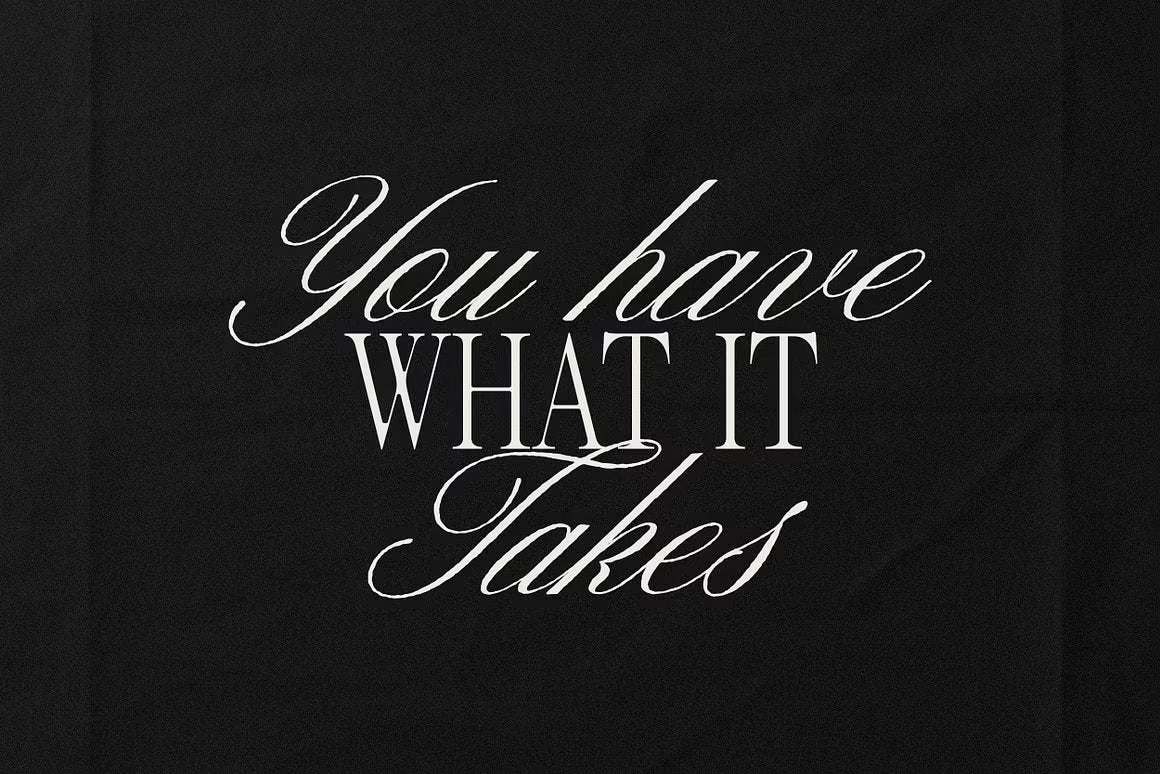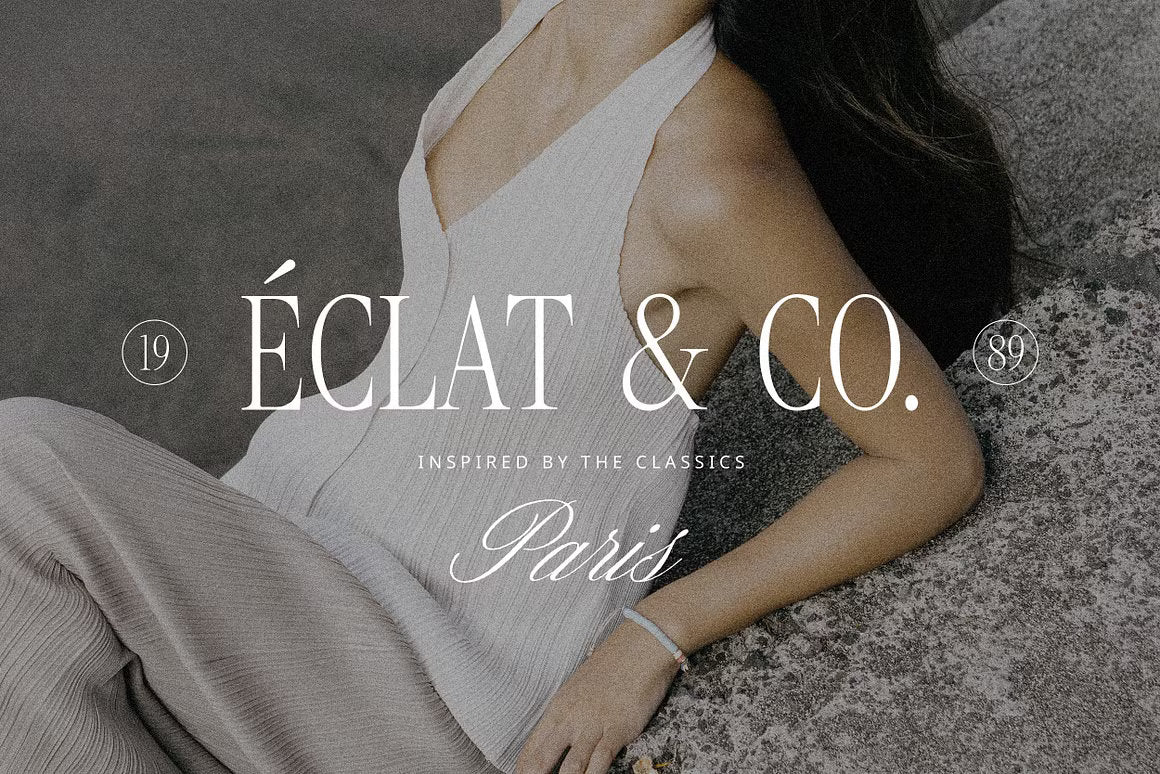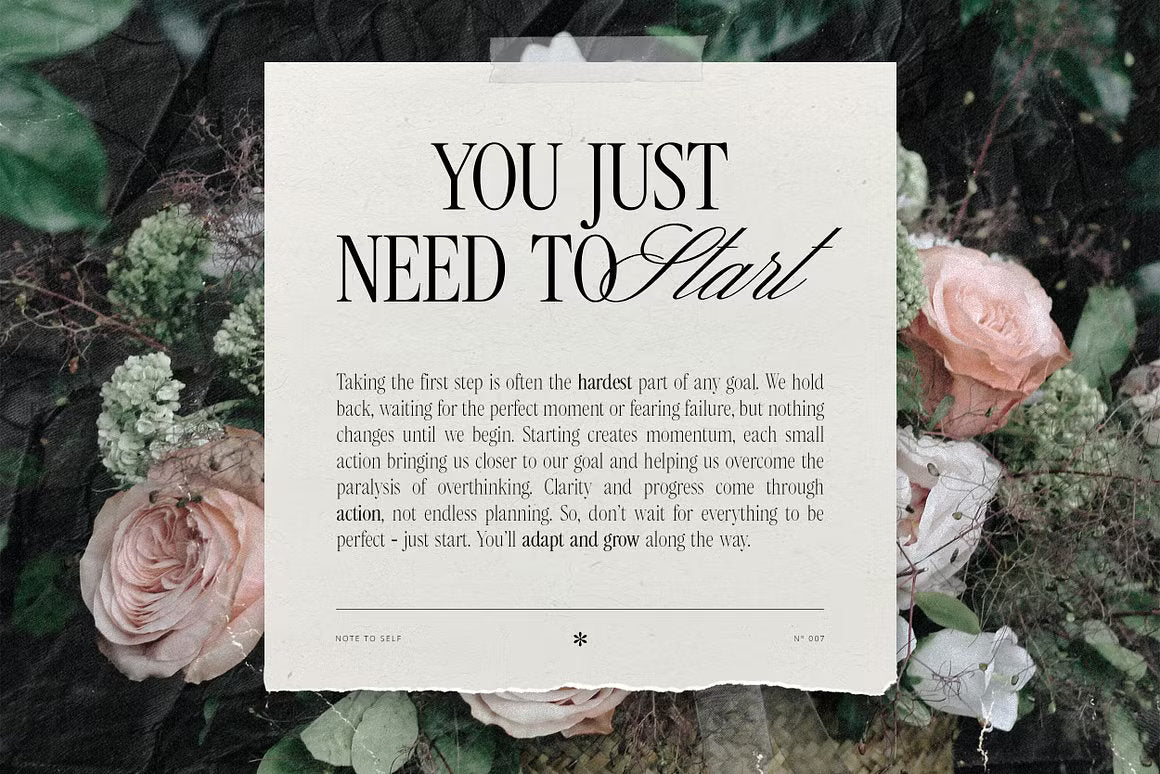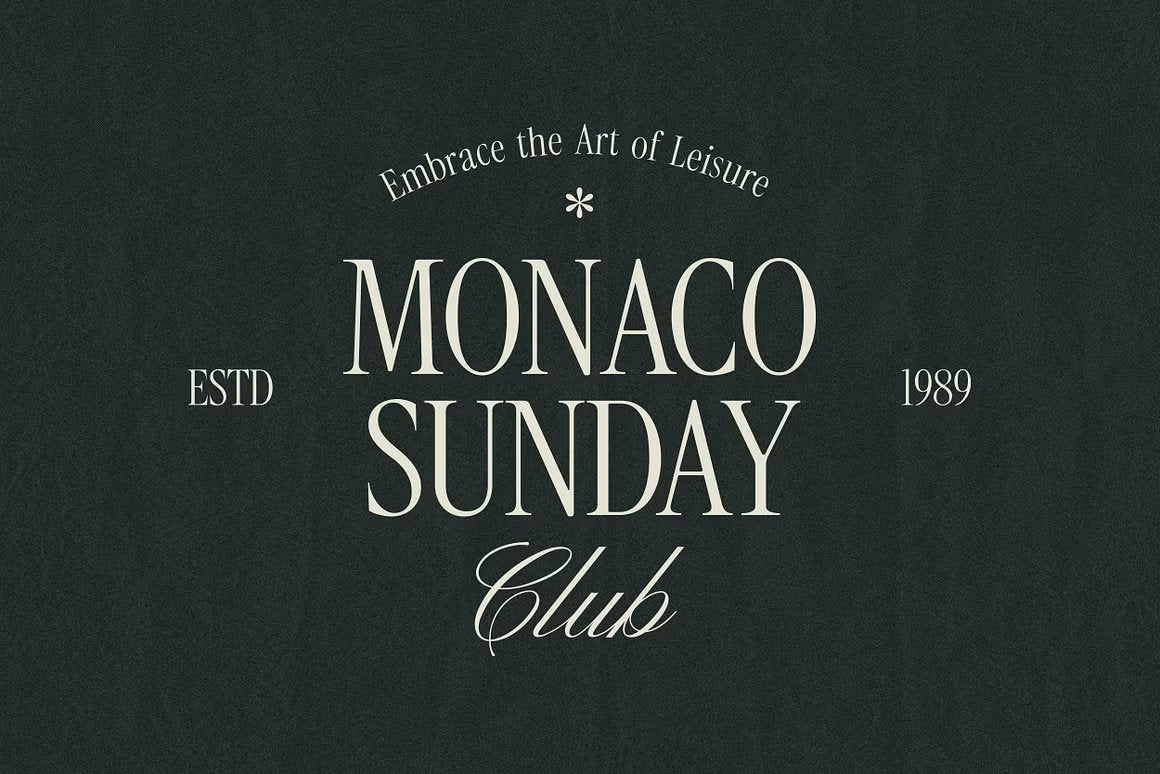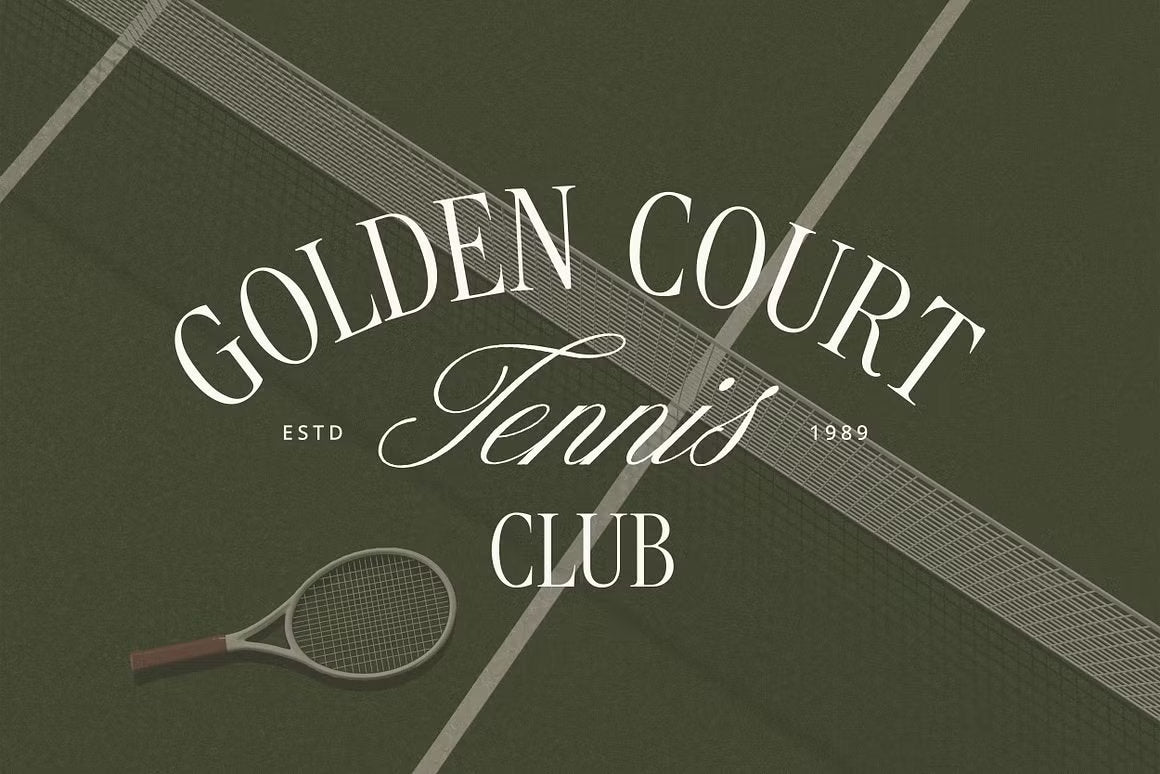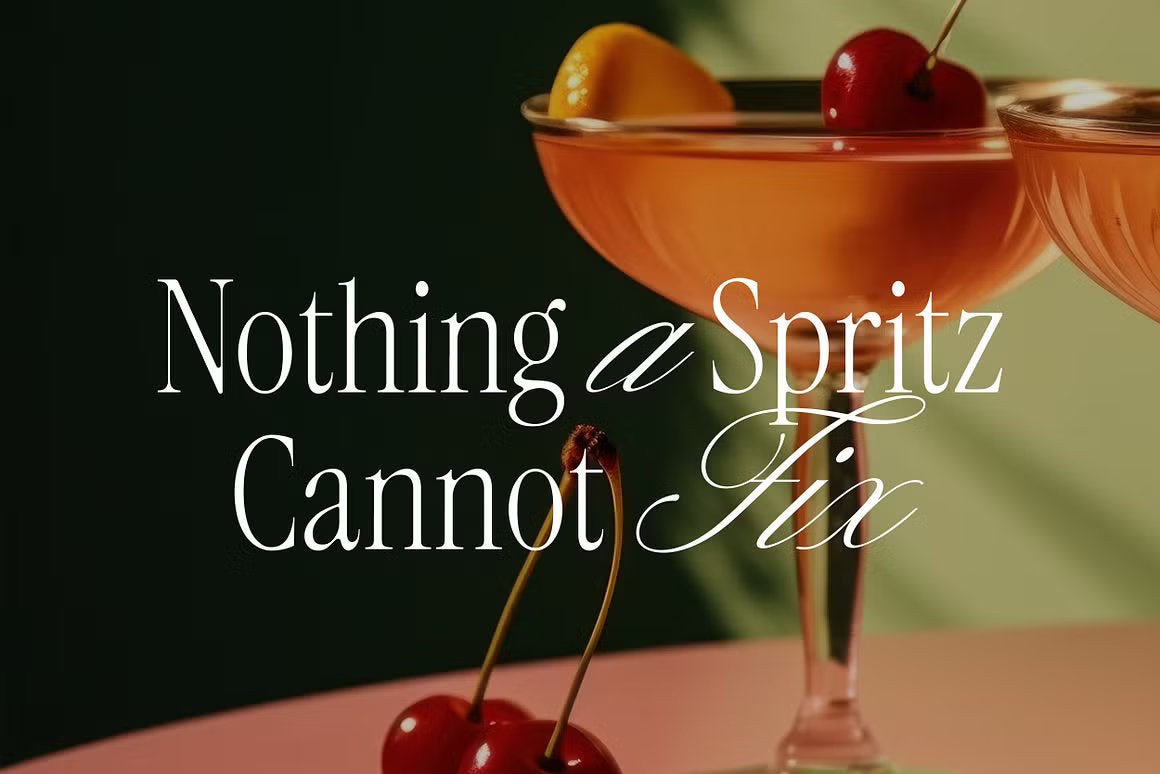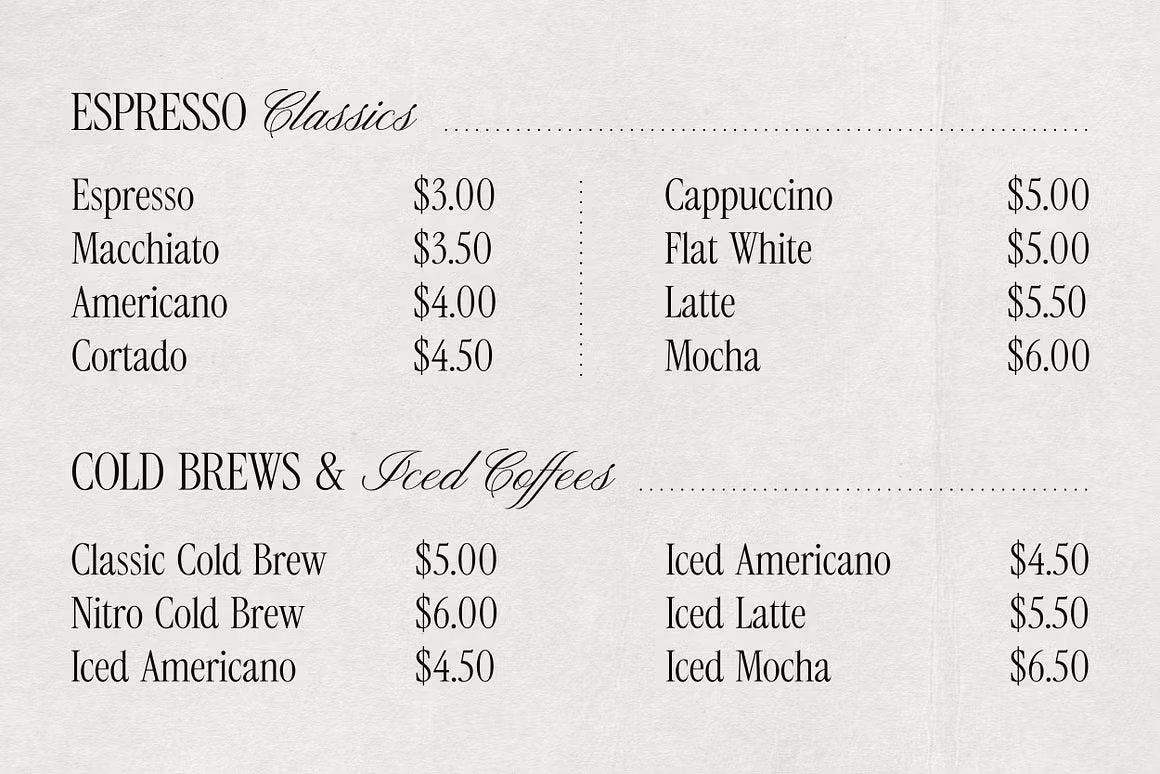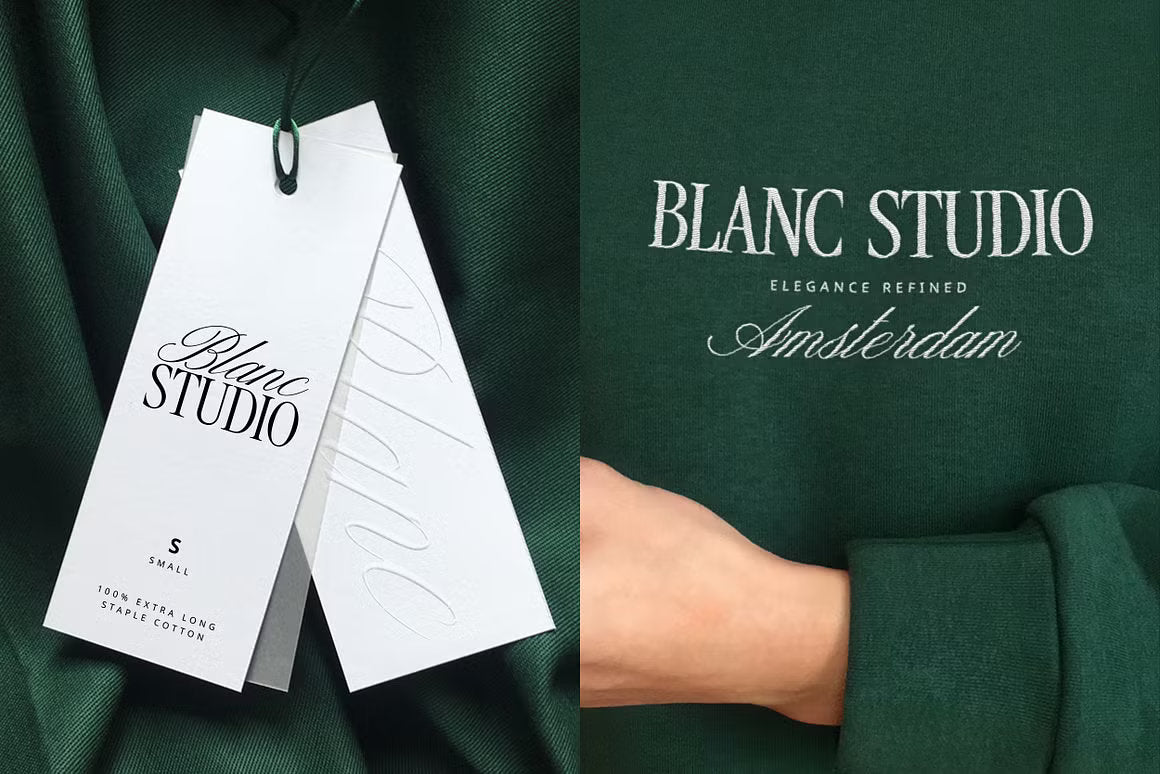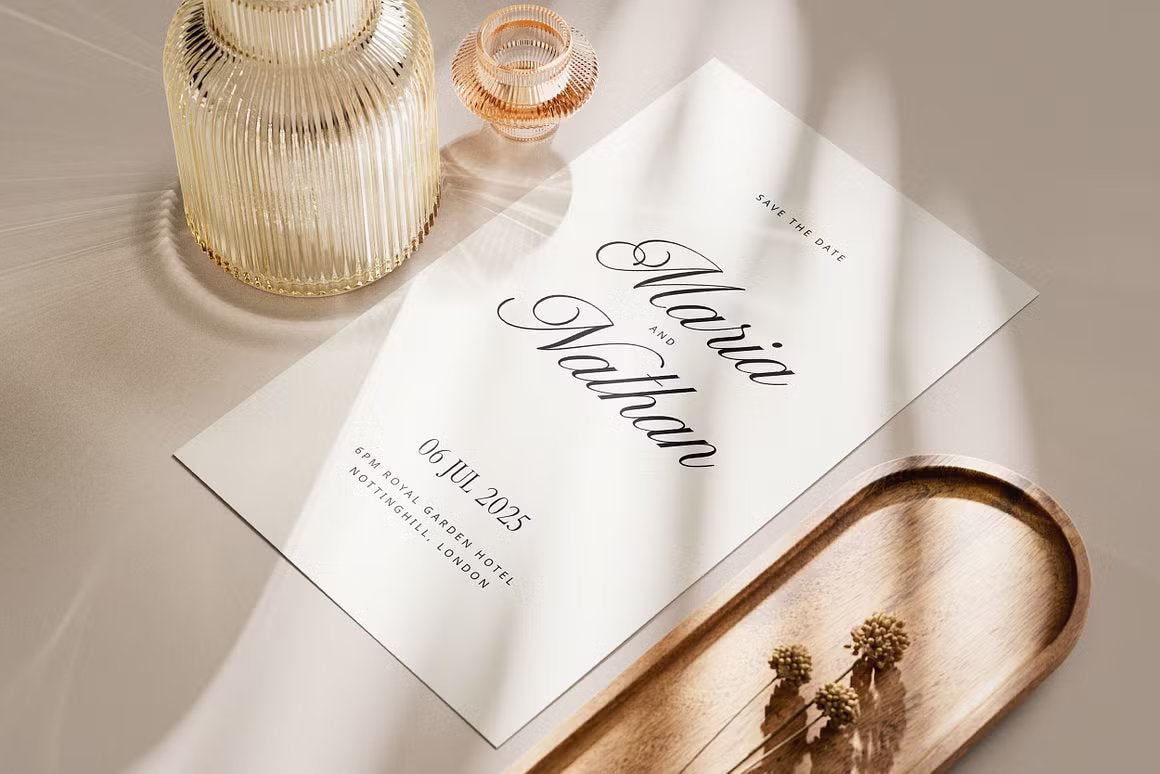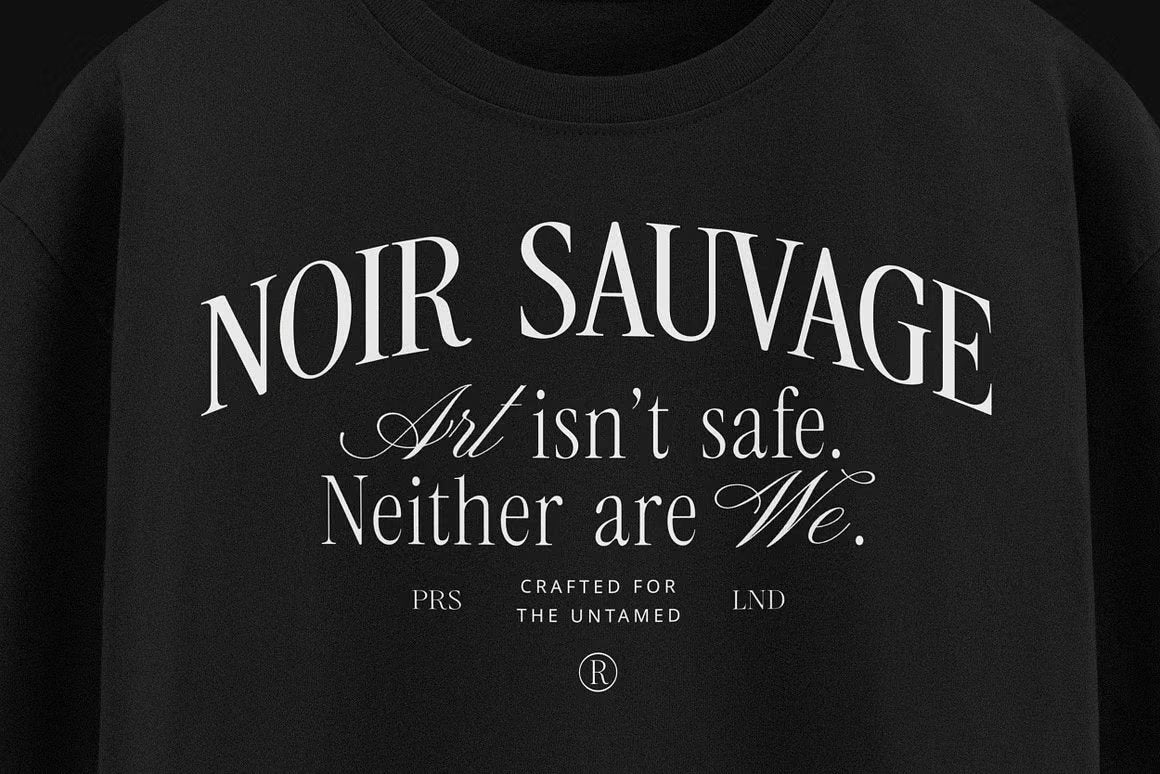
Darline Font Duo
Meet Darline Font Duo — a graceful combination of serif and script styles that come together to create a refined and balanced typographic experience.
Darline includes multiple variations in both categories. The serif comes in three versatile weights: Light, Regular, and Bold, while the script offers four unique versions: Regular, Regular Slanted, Aged, and Aged Slanted — giving you the flexibility to craft elegant and expressive designs with ease.
Why You’ll Love Darline Font Duo
Perfect Font Pairing — A carefully designed blend of serif and script for an effortlessly chic aesthetic.
Full Punctuation and Symbols — Includes all essential characters, numerals, and symbols for professional use.
Broad Language Support — Covers English, Italian, French, Spanish, German, Portuguese, Dutch, Danish, Norwegian, and Swedish.